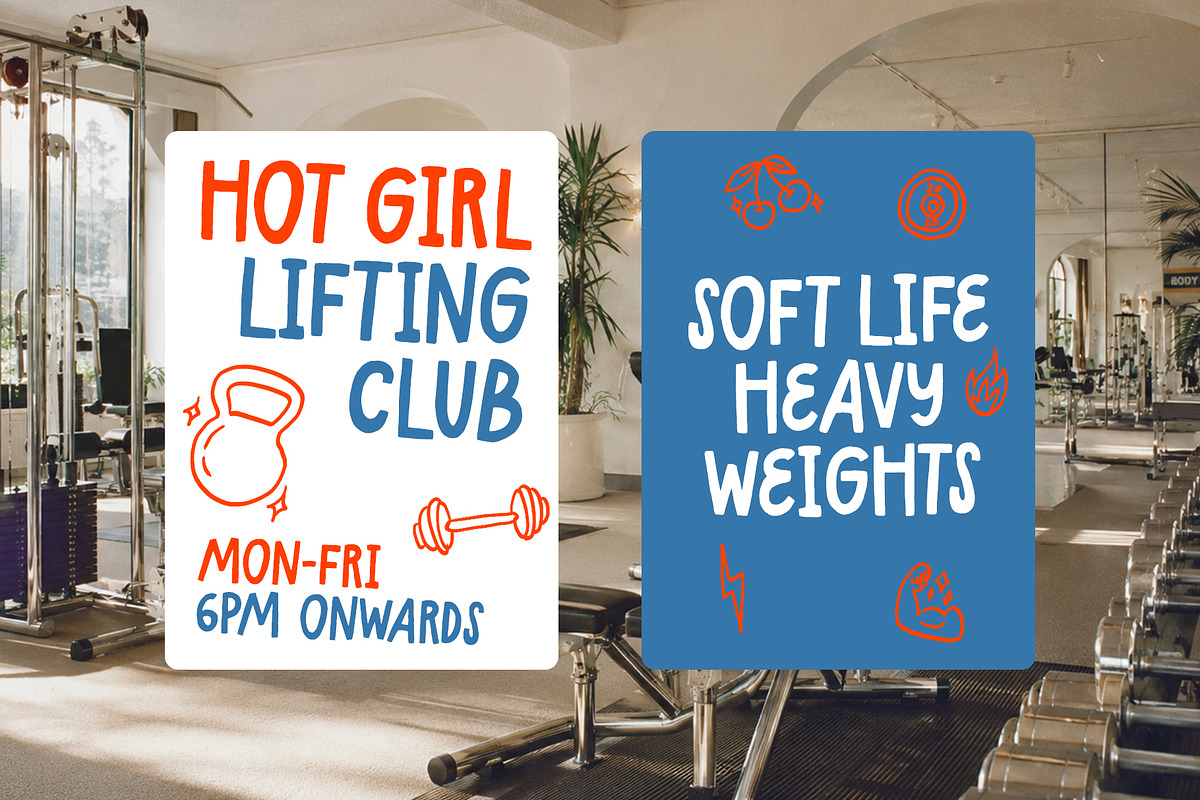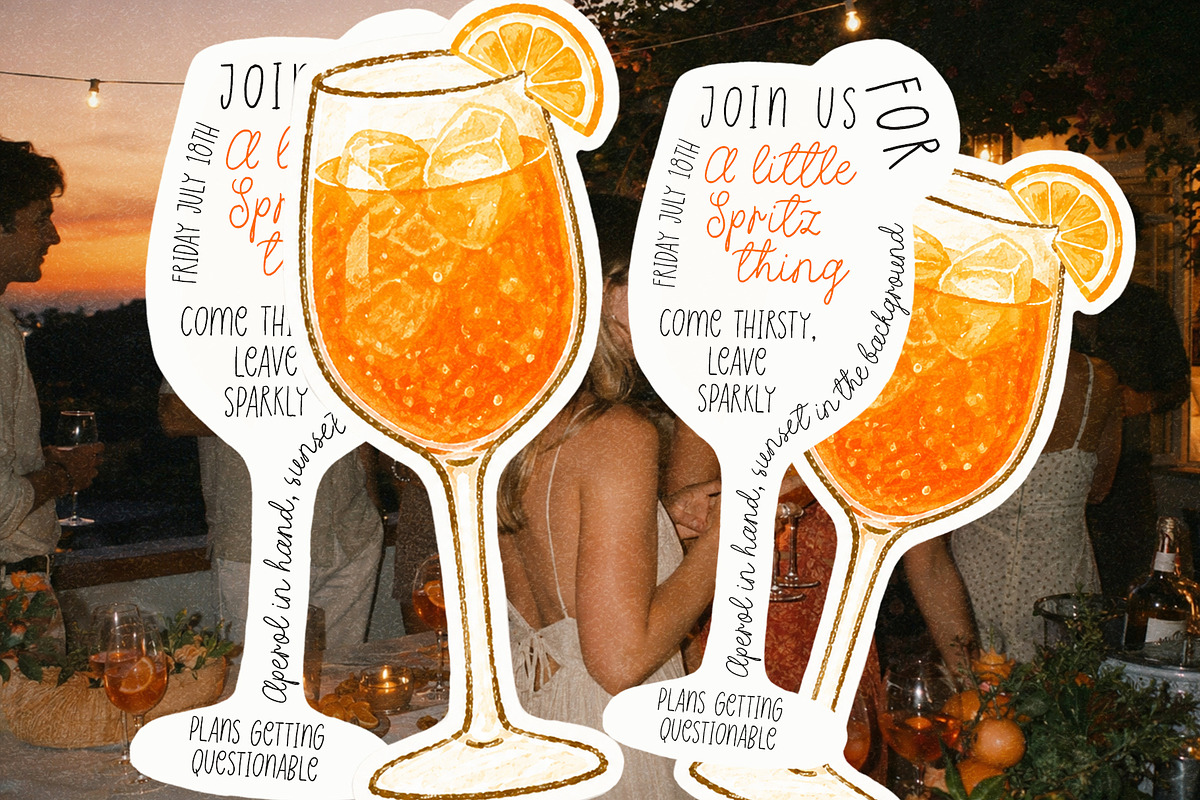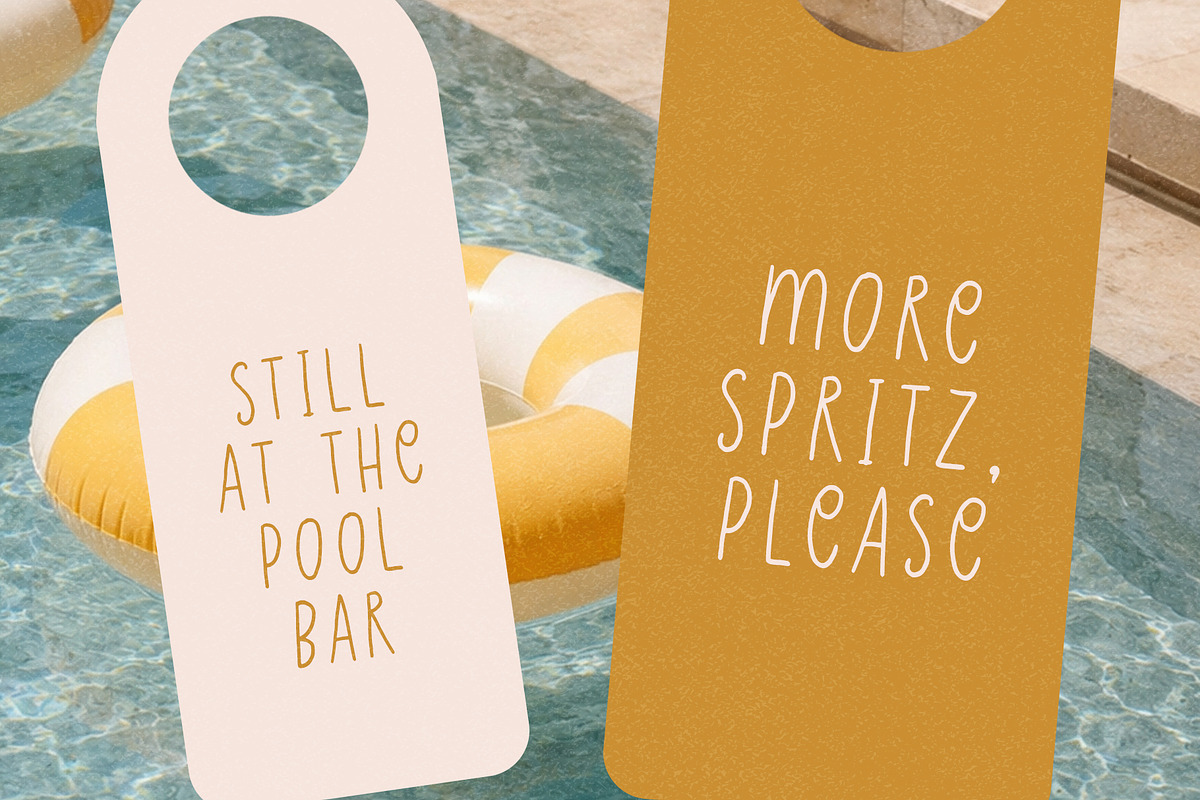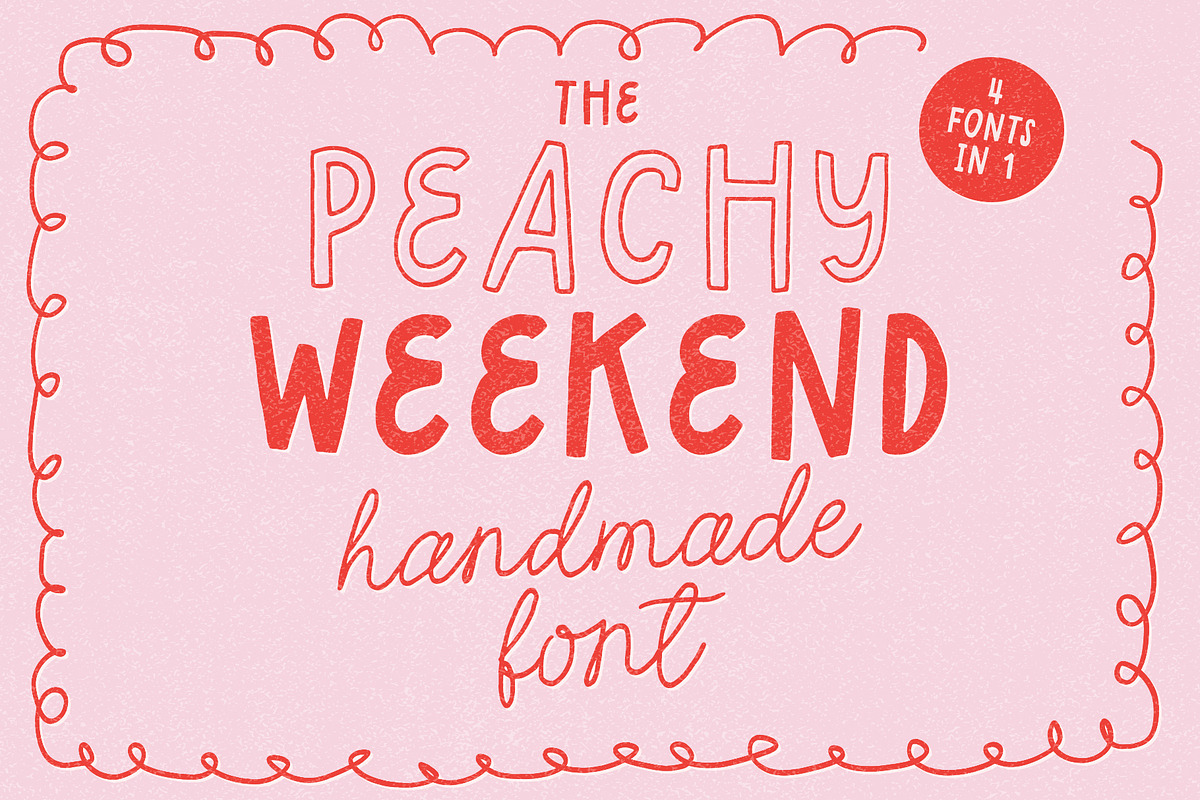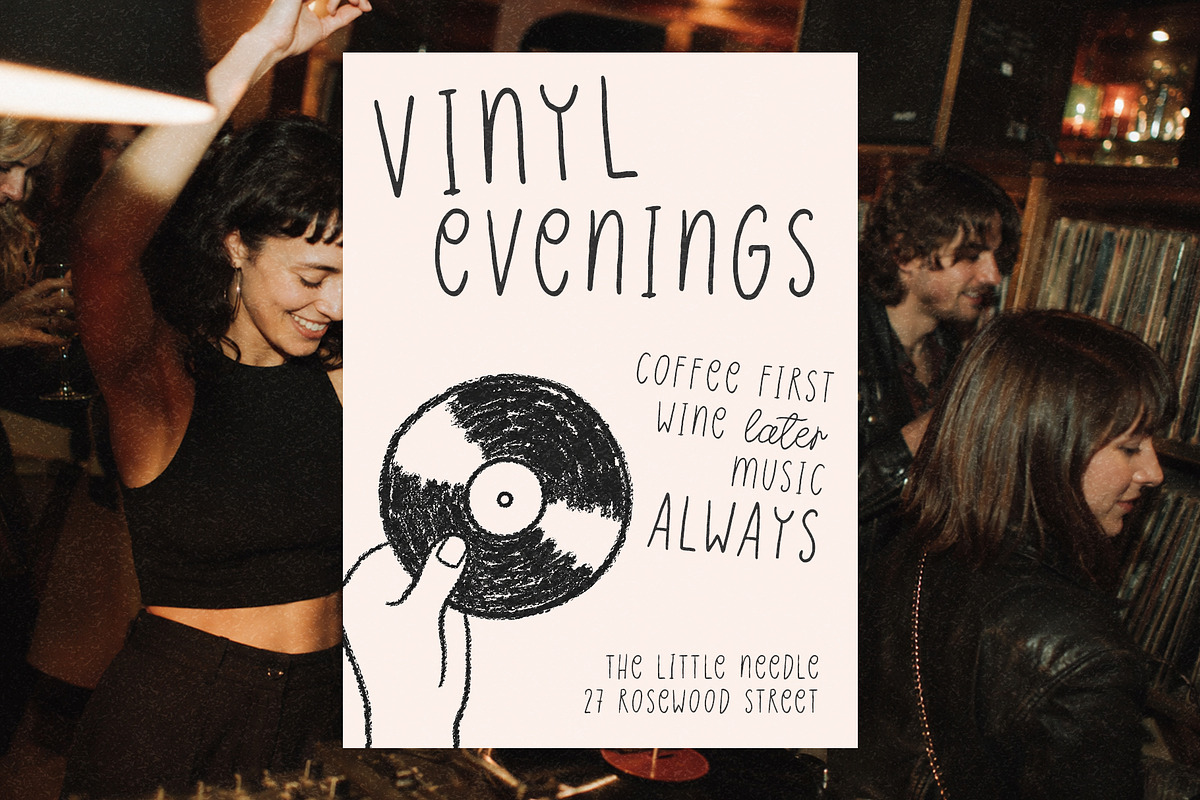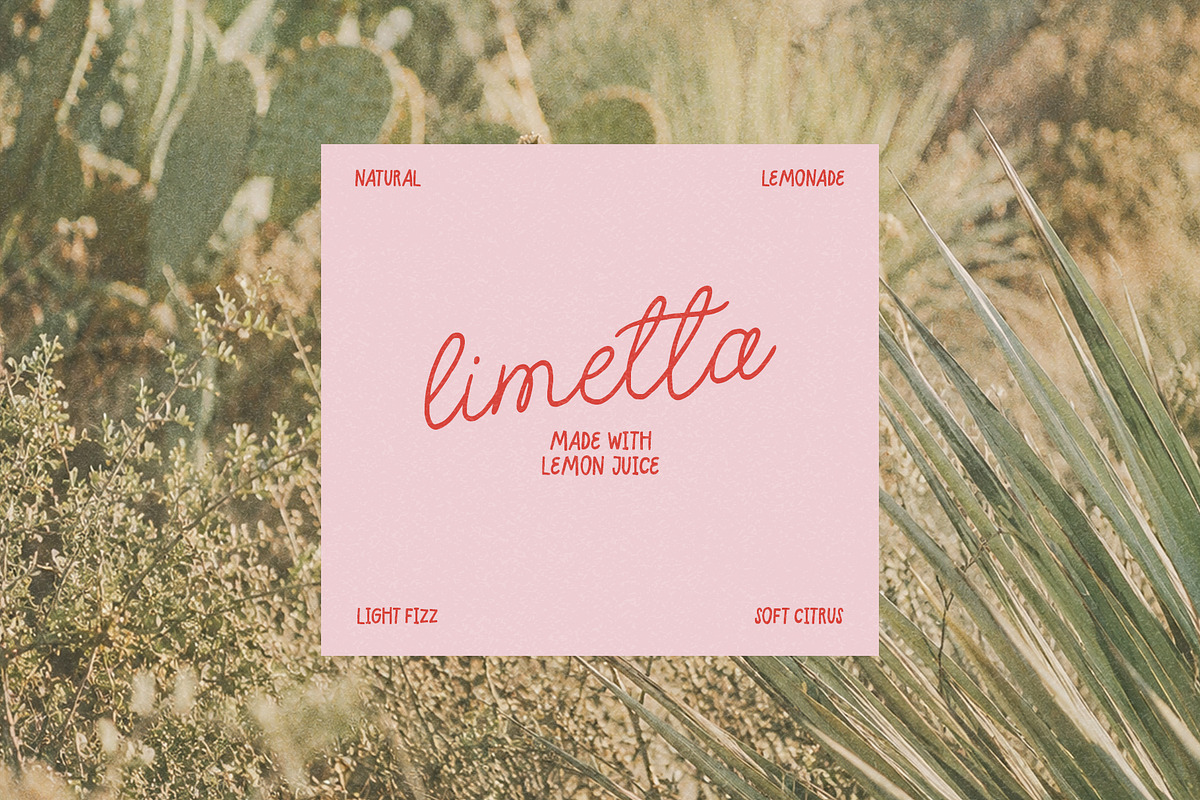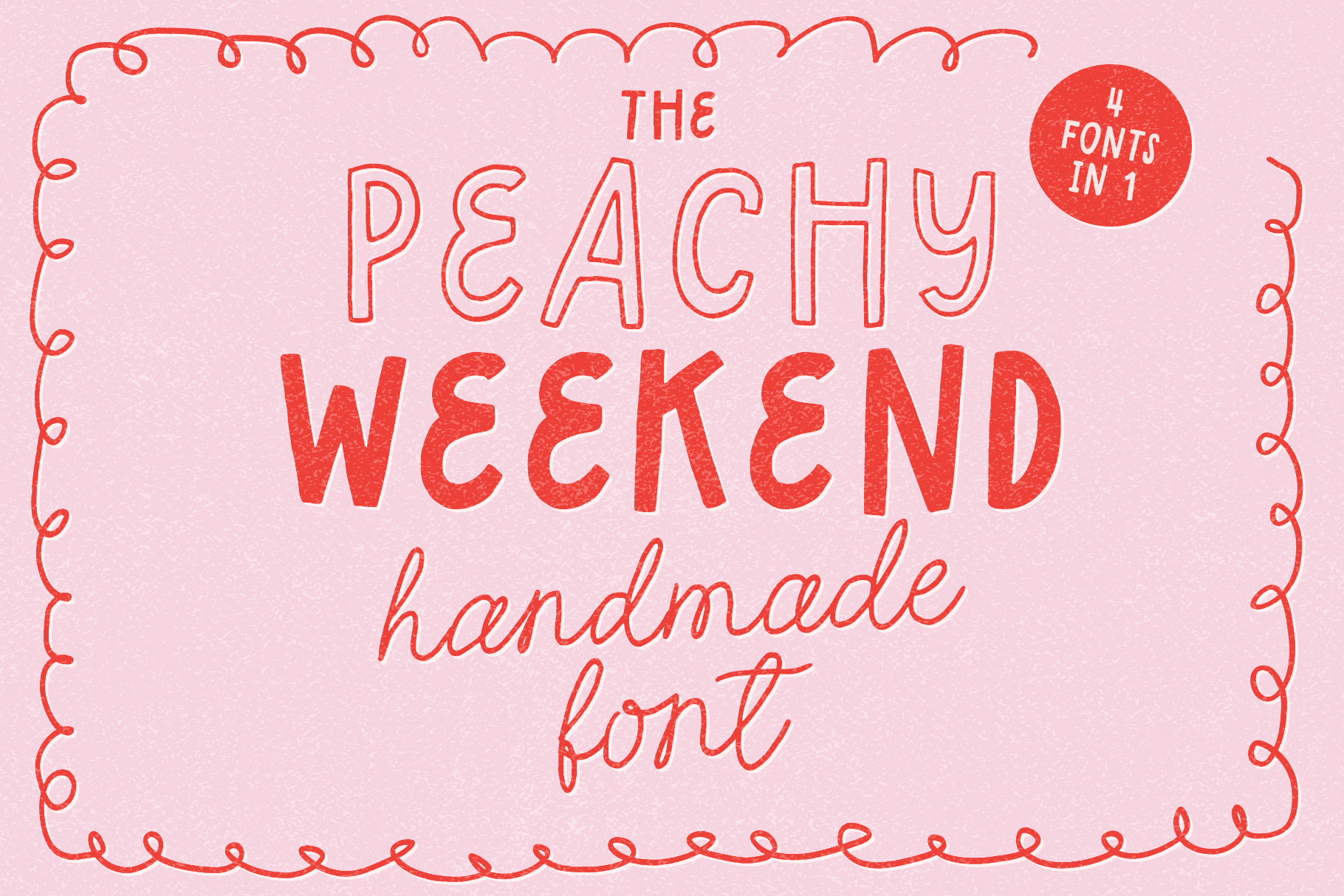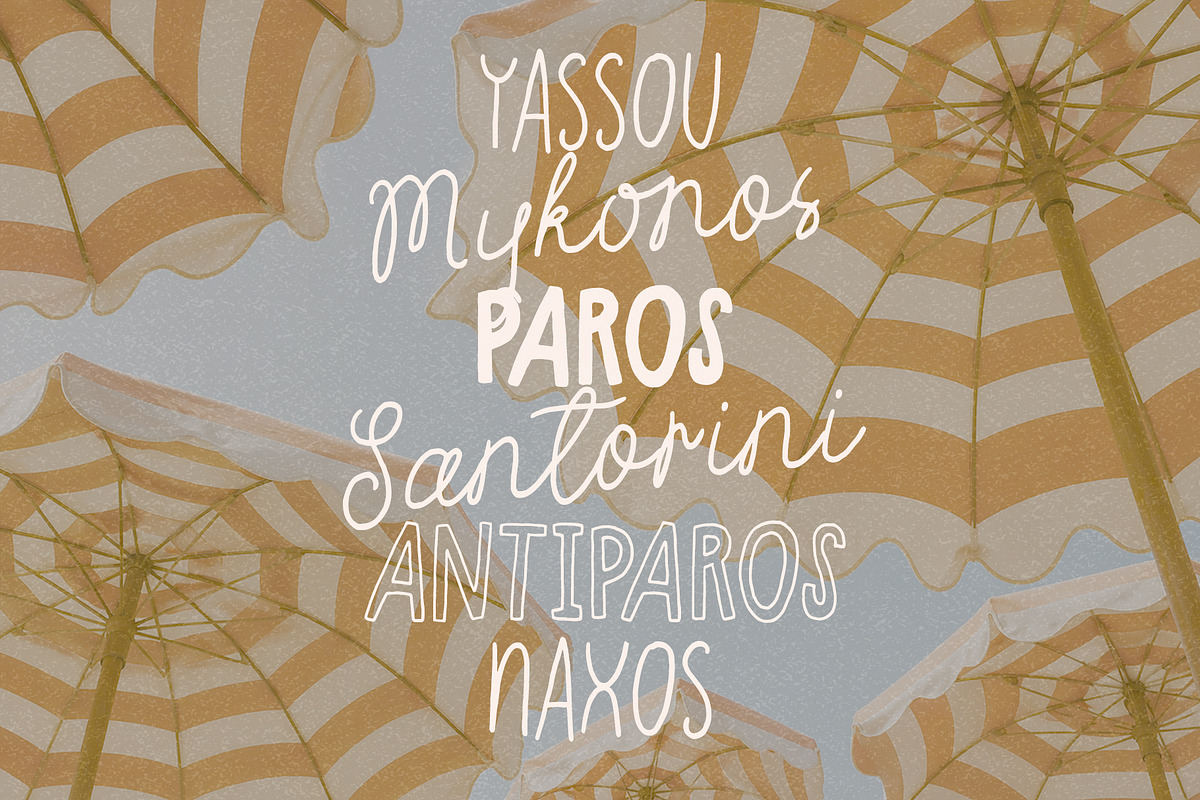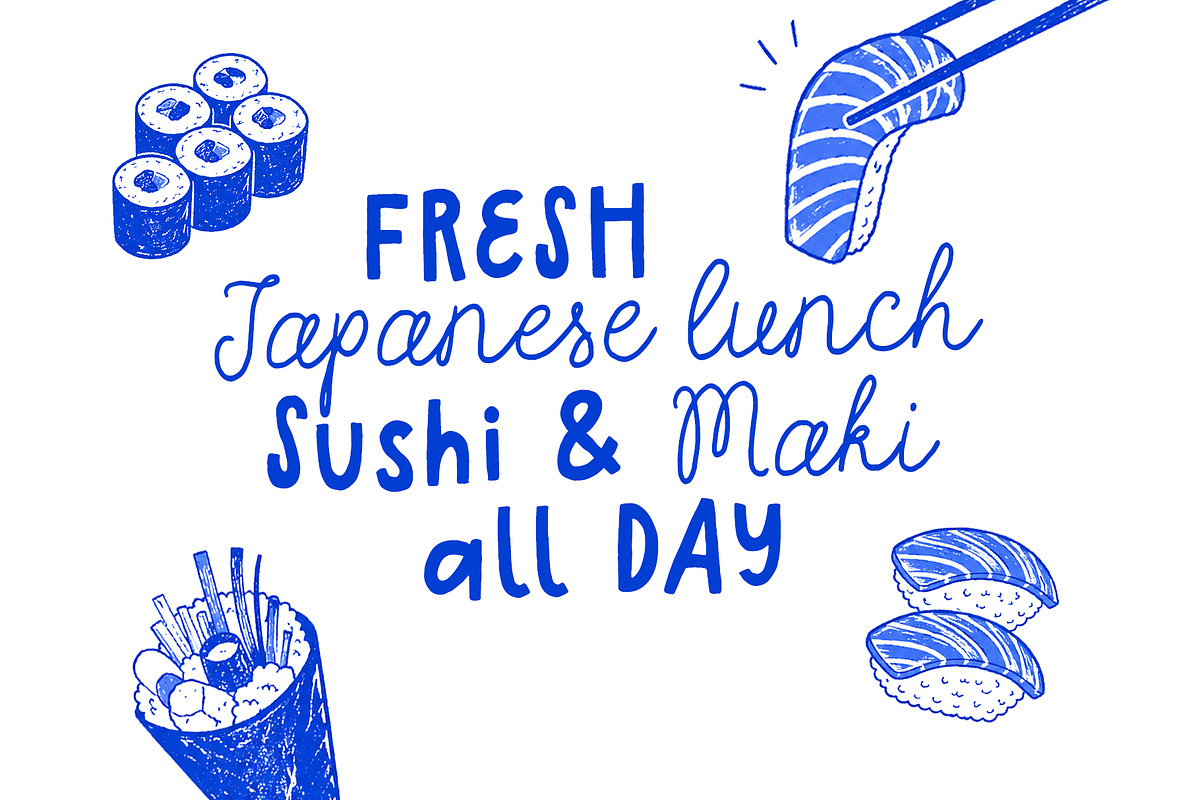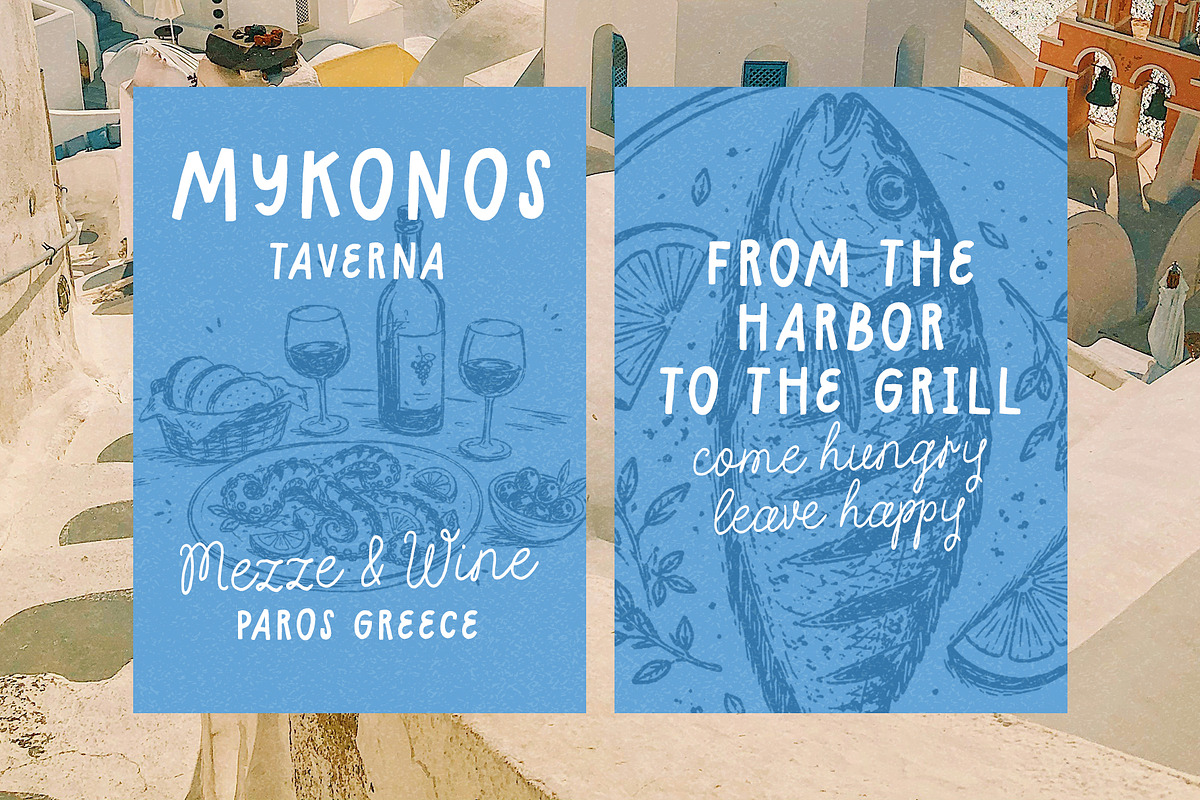
Peachy Weekend Handwritten Font
Peachy Weekend is a playful handwritten font collection with a warm, sunny, and slightly nostalgic mood. It was made for designs that need to feel casual, friendly, and handmade — from café menus and packaging to posters, stickers, social media graphics, invitations, branding, and summer-themed projects.
The collection includes four different styles that work beautifully together, so you can mix bold lettering, soft script, outline text, and playful all-caps details in one design. Peachy Weekend also comes with multilingual support for European languages, making it easy to use for a wide range of creative projects.
Peachy Weekend Script
Peachy Weekend Sans
Peachy Weekend Sans Outline
Peachy Weekend All Caps